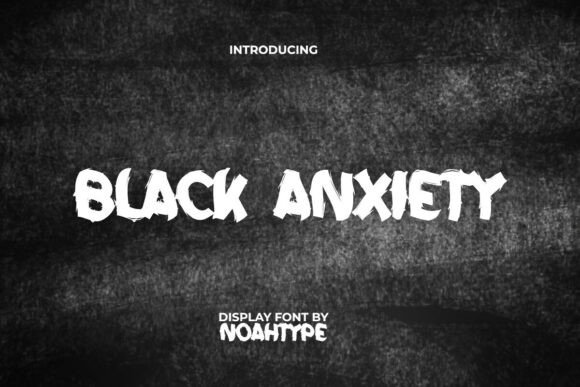
Unleash Your Design’s Inner Rebel: A Deep Dive into the Black Anxiety Font
I’ll never forget the design project that pushed me to the edge. A punk rock band had approached me to create a bold, eye-catching poster for their upcoming concert. I was determined to deliver something that would make their fans take notice. But, as I scrolled through my font library, I realized I was stuck. Nothing seemed quite right – until I stumbled upon the Black Anxiety font.
Injecting raw, unbridled energy into my design, the Black Anxiety font was the perfect companion for the band’s rebellious vibe. Its powerful, hand-painted display typeface screamed with a visceral, grungy texture and an unapologetic attitude. I knew right then and there that I had found the perfect fit.
What Makes the Black Anxiety Font So Special?
The Black Anxiety font captures the essence of a raw brush stroke, featuring uneven, jagged outlines and a deliberately distressed look that is impossible to ignore. Its aggressive style makes it the ideal companion for designs needing to convey strong emotion, chaos, or streetwise authenticity.
Perfectly suited for album covers, punk rock posters, video game titles, extreme sports branding, and urban apparel designs, this loud and impactful Black Anxiety typeface will give your message a gritty, in-your-face personality and a truly unique texture.
My Honest Review: The Good, the Bad, and the Quirky
- ✨ Unique Texture: The distressed look of the Black Anxiety font adds a layer of depth to any design.
- ✅ High-Impact Legibility: Even at smaller sizes, the font remains bold and easy to read.
- 🔥 Emotional Connection: The font’s rebellious attitude helps create an instant connection with the target audience.
⚠️ While the Black Anxiety font is incredibly versatile, it’s not the best choice for body text or smaller font sizes. Its distressed texture and bold style can make it difficult to read in large blocks of text.
🤔 Additionally, some users may find the font’s uneven outlines and jagged edges a bit challenging to work with, especially when trying to achieve a precise design.
The Black Anxiety font was born out of a desire to capture the raw energy and emotion of the urban landscape. Its creator, a young designer with a passion for street art and punk rock, wanted to create a font that would speak to the rebellious spirit of creatives everywhere.
Inspired by the bold, graffiti-style lettering that adorned city walls and skateboards, the designer set out to create a font that would embody the same attitude and energy. The result was the Black Anxiety font – a powerful, hand-painted display typeface that screams with a visceral, grungy texture and unapologetic attitude.
Q: What type of projects is the Black Anxiety font best suited for?
A: The Black Anxiety font is perfect for designs that require a bold, attention-grabbing style, such as album covers, punk rock posters, video game titles, extreme sports branding, and urban apparel designs.
Q: Is the Black Anxiety font difficult to read?
A: While the Black Anxiety font is bold and attention-grabbing, it may not be the best choice for body text or smaller font sizes. Its distressed texture and bold style can make it difficult to read in large blocks of text.